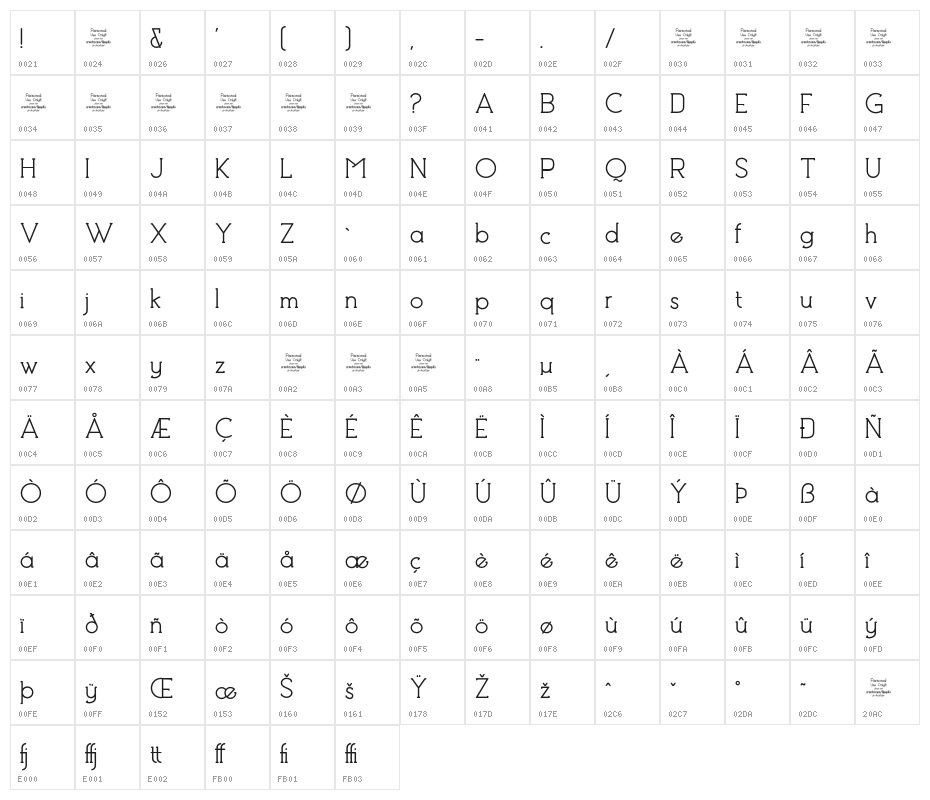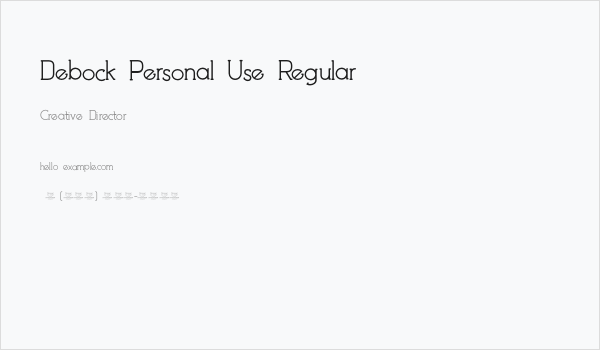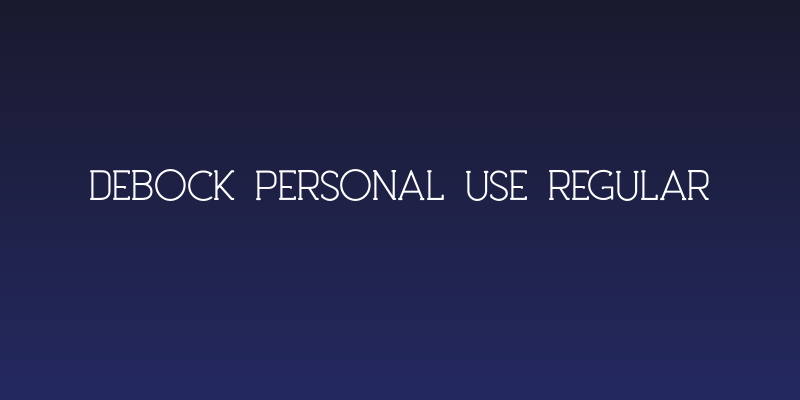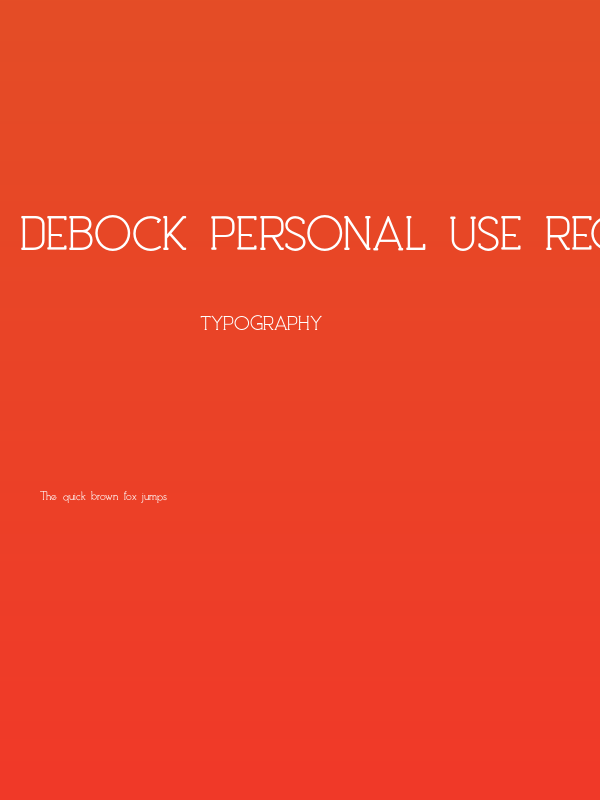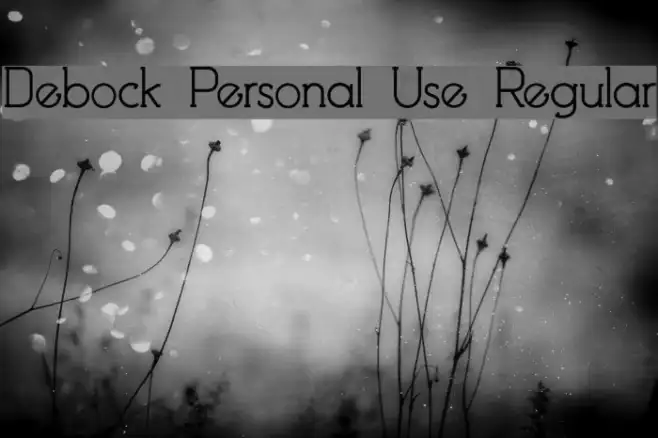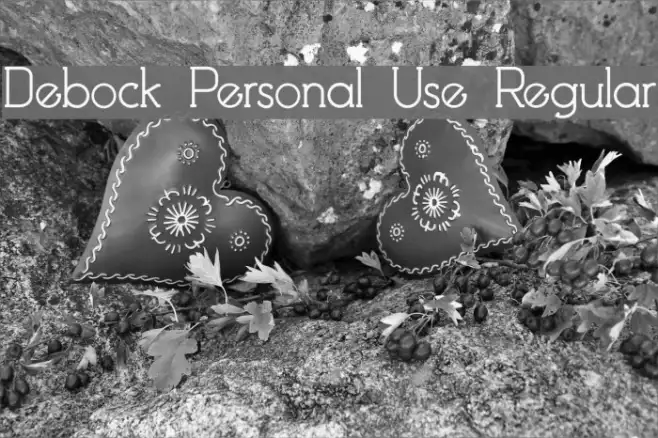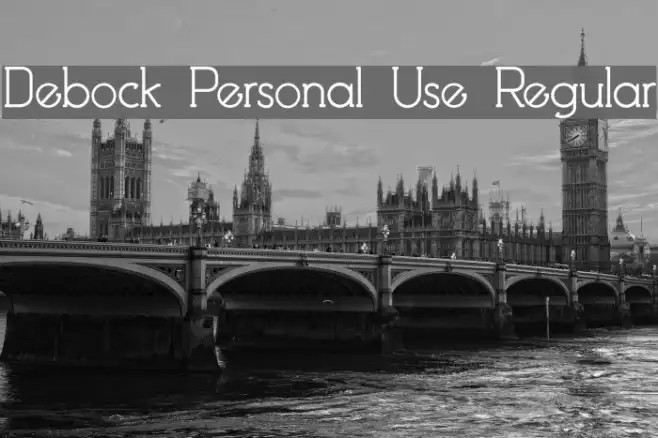
Debock Personal Use Regular Font
Debock Personal Use Regular Description
This font features a clean and modern design with a geometric structure. The uppercase letters are tall and slightly condensed, giving a sleek and sophisticated appearance. The lowercase letters maintain a consistent height, contributing to a balanced and harmonious look. The font includes a range of special characters, ensuring versatility in various design contexts. Its thin strokes and minimalistic style make it suitable for contemporary projects. The overall aesthetic is elegant and refined, with a subtle touch of uniqueness in certain characters.
| Use Case | Headlines, Logos, Editorial design |
| Proposed Projects | Ideal for branding, editorial design, and digital interfaces where a modern and sophisticated look is desired. |